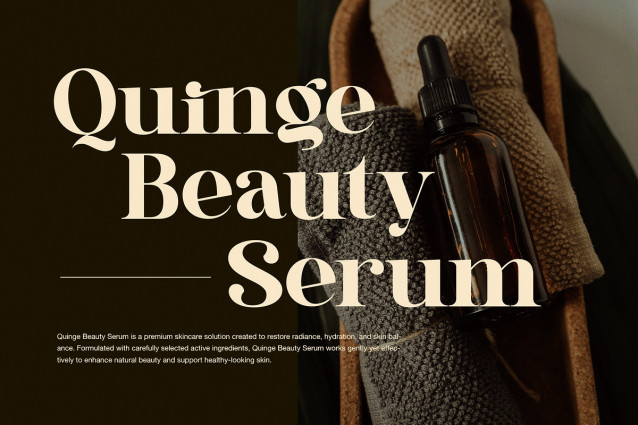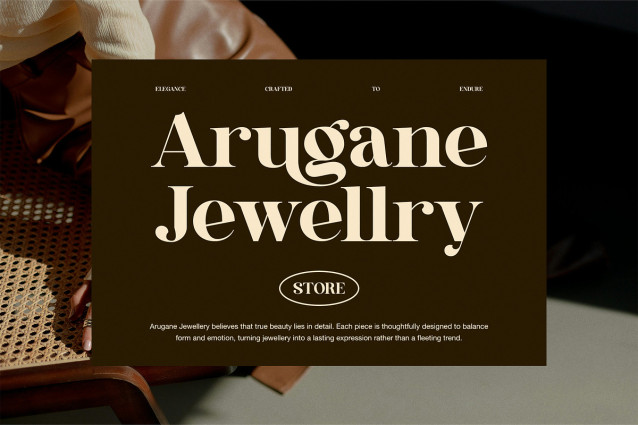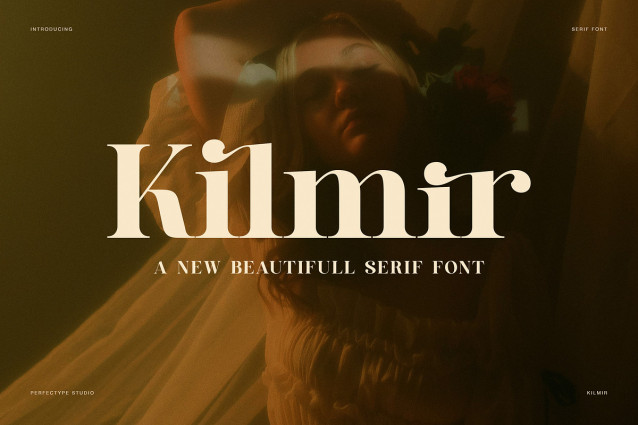
Kilmir Font
Kilmir Font is an elegant luxury serif font created to express refinement, strength, and timeless beauty. It combines classic serif tradition with modern softness, so every headline feels graceful yet confident. Because of its balanced proportions and smooth curves, Kilmir delivers a premium look without sacrificing readability.
This font shines in fashion, furniture, beauty, jewellery, and lifestyle branding. Moreover, its warm personality makes products feel trustworthy and sophisticated at the same time. Whether you design logos, packaging, advertising, or editorial layouts, Kilmir creates a strong visual identity that feels intentional and polished.
Kilmir includes uppercase and lowercase letters, numbers, punctuation, stylish alternates, and refined ligatures. As a result, designers can craft unique typography that looks custom-made. The ligatures add elegance to letter combinations, while the alternate characters introduce subtle variation that keeps layouts fresh and expressive.